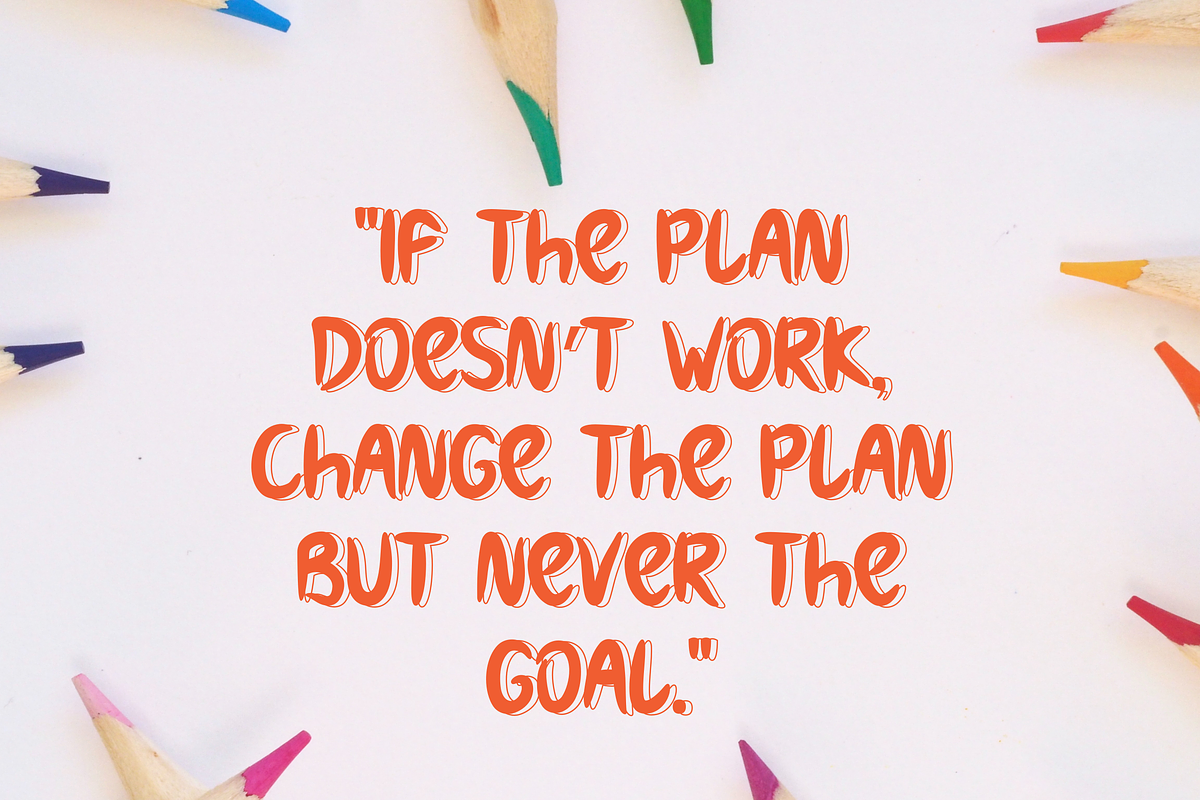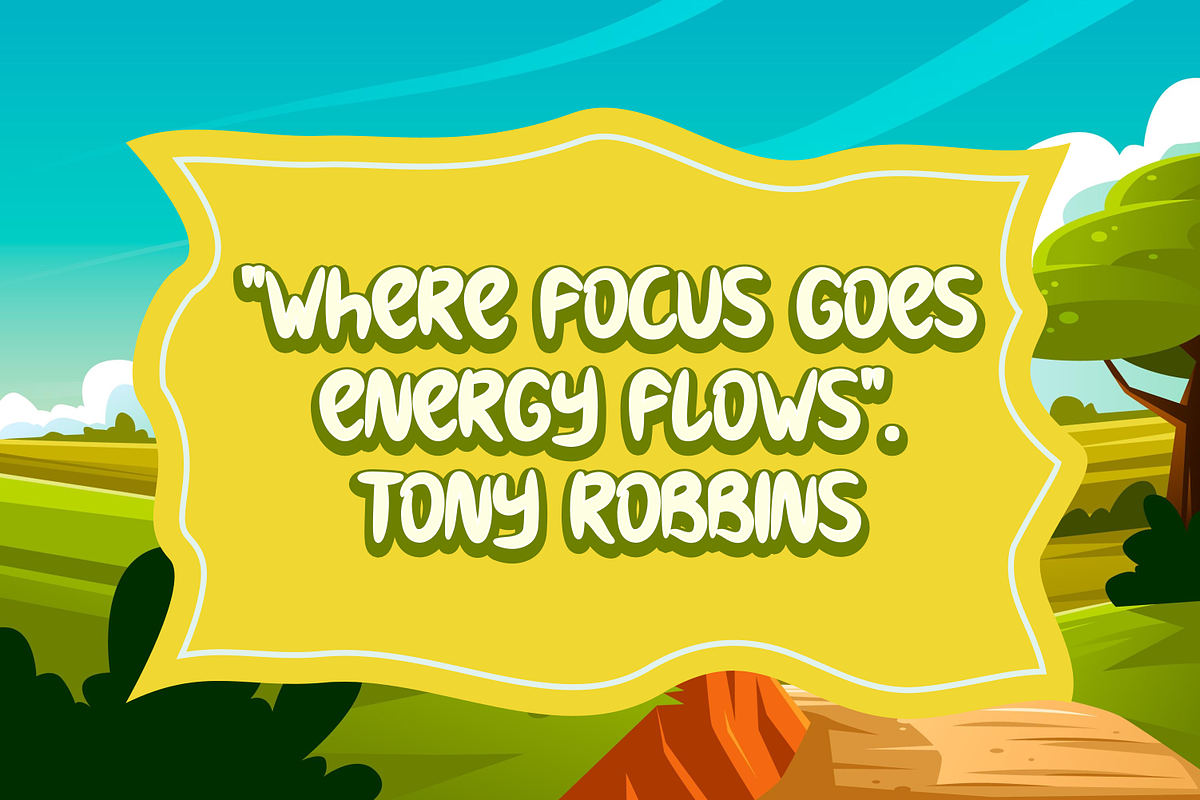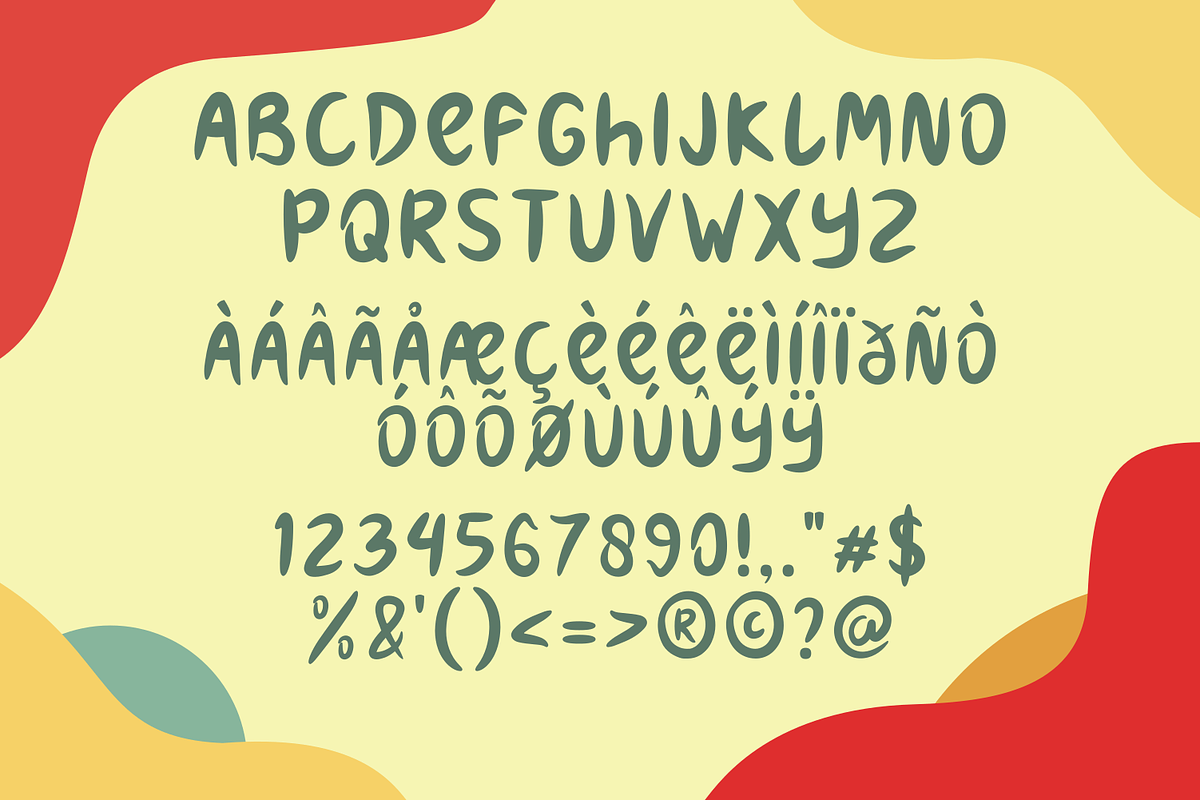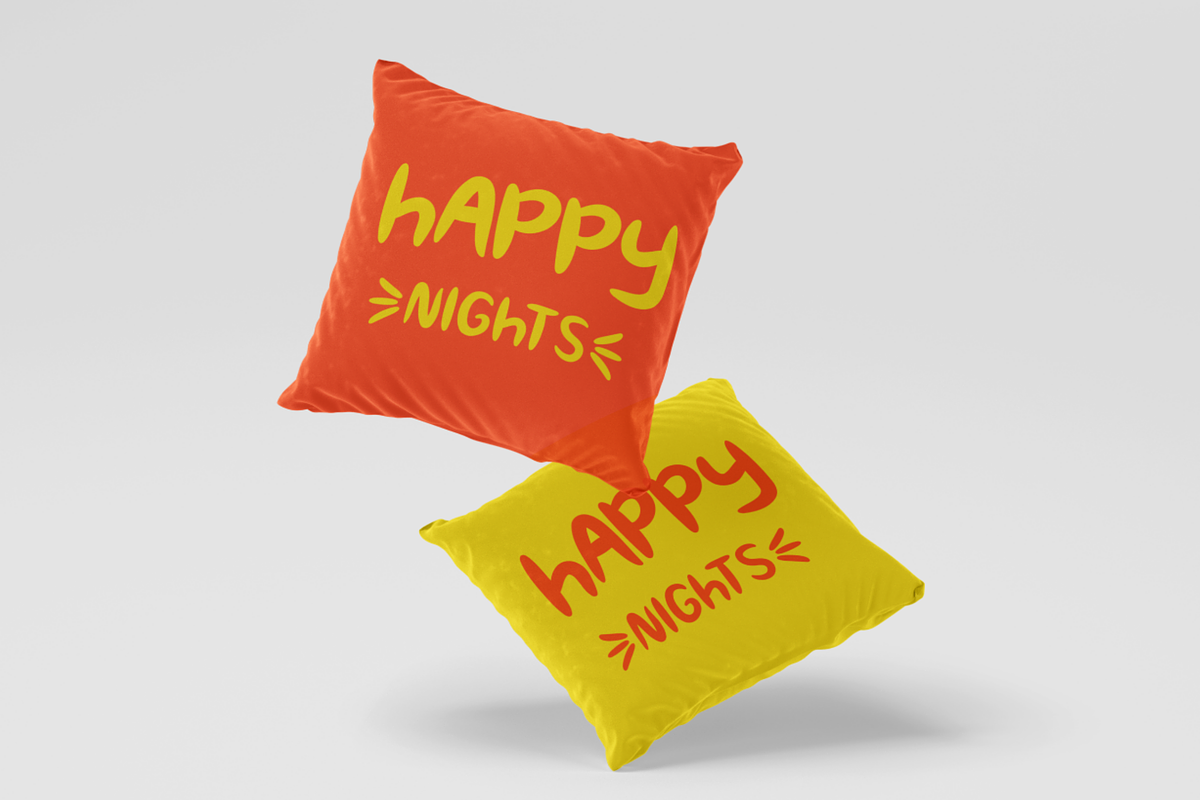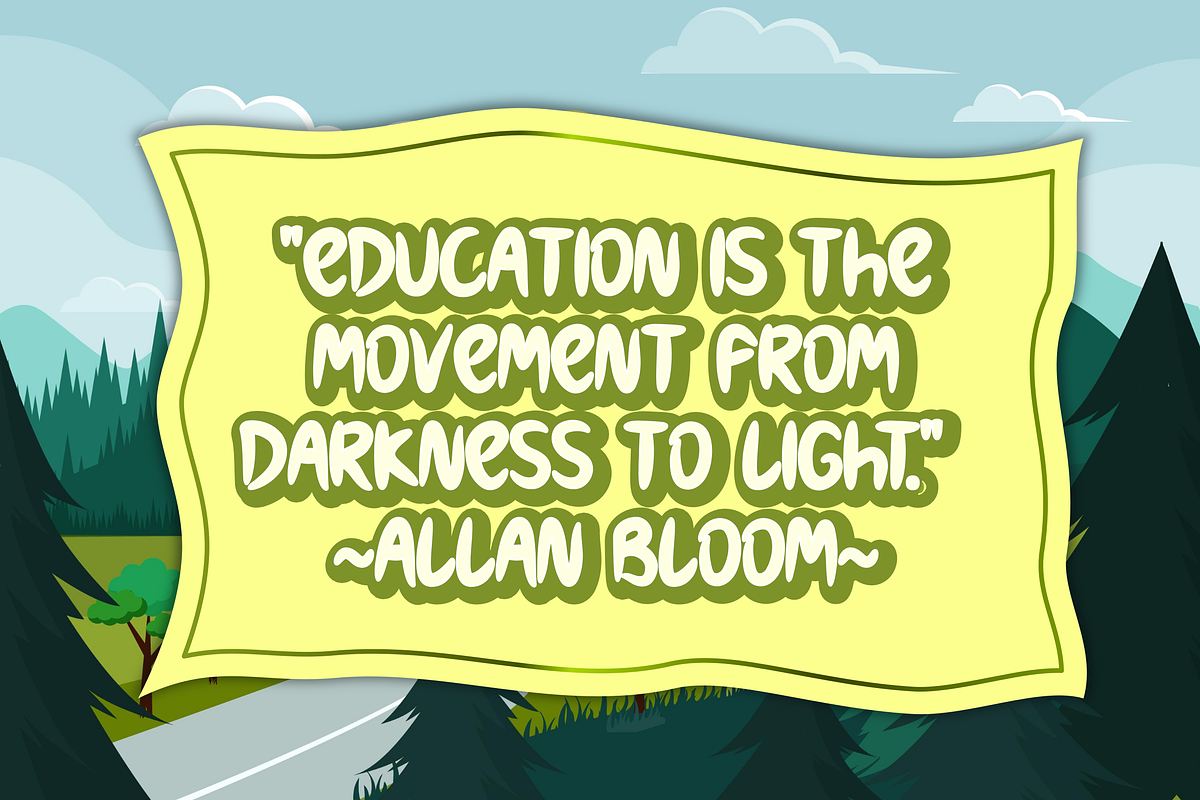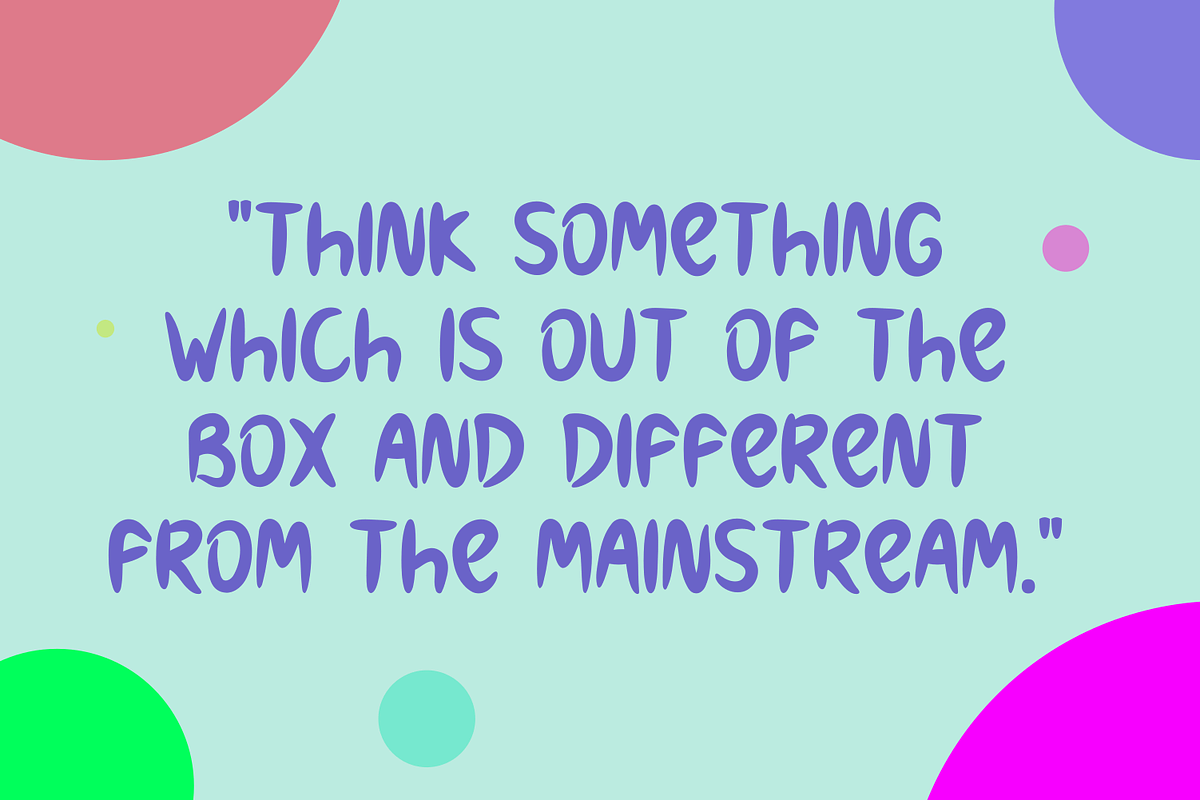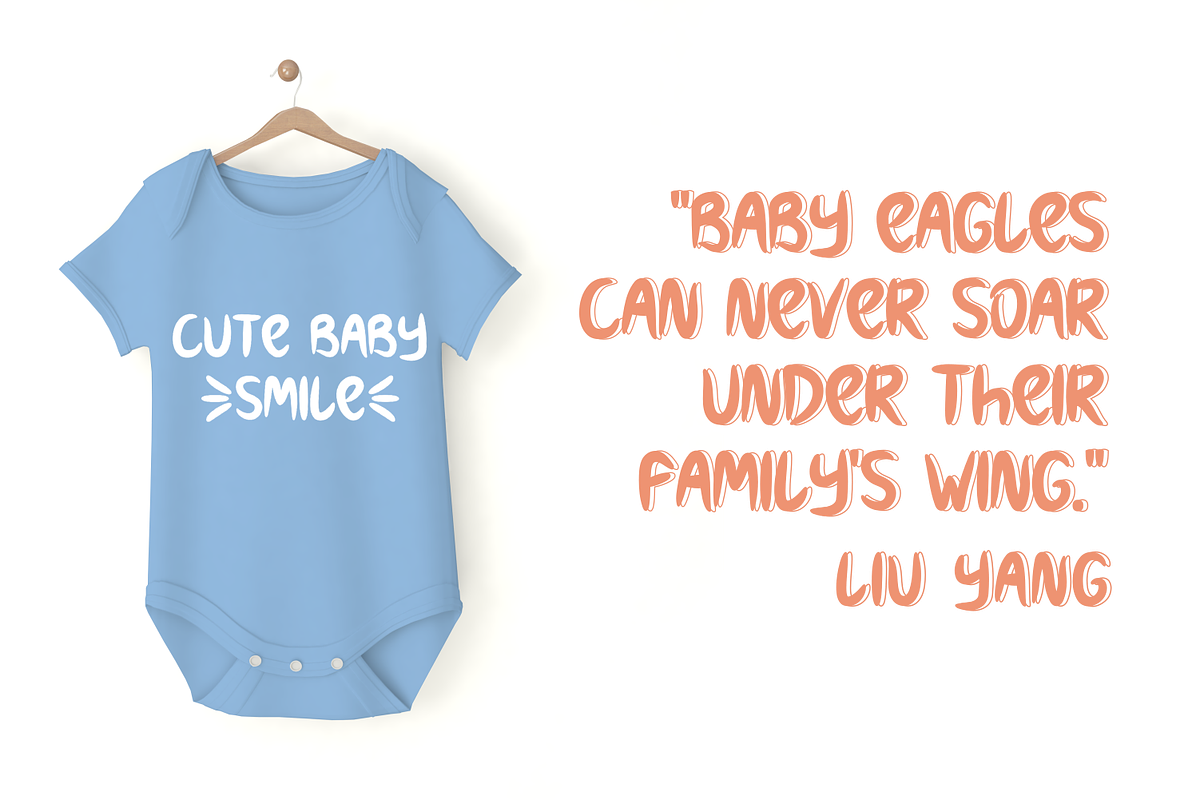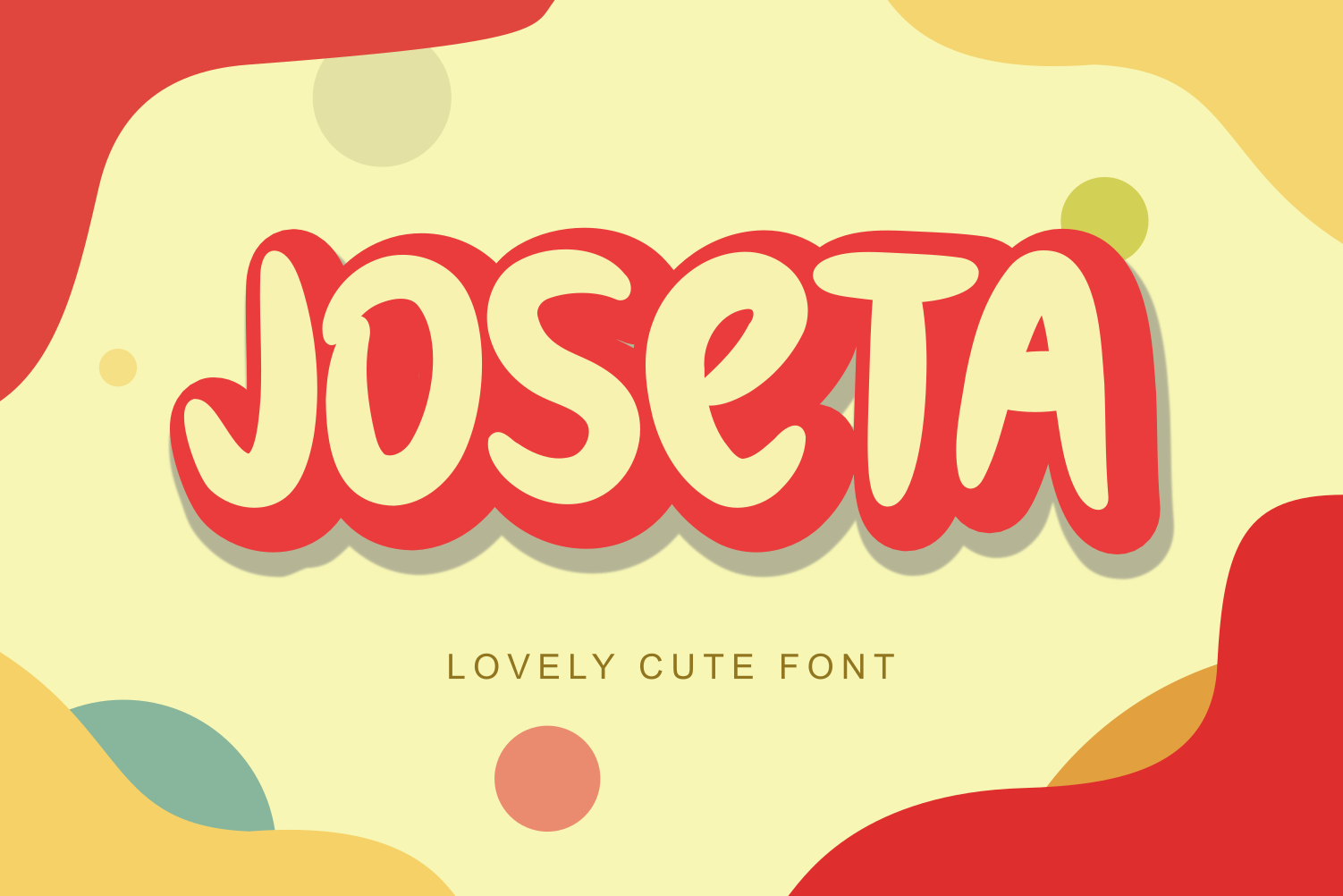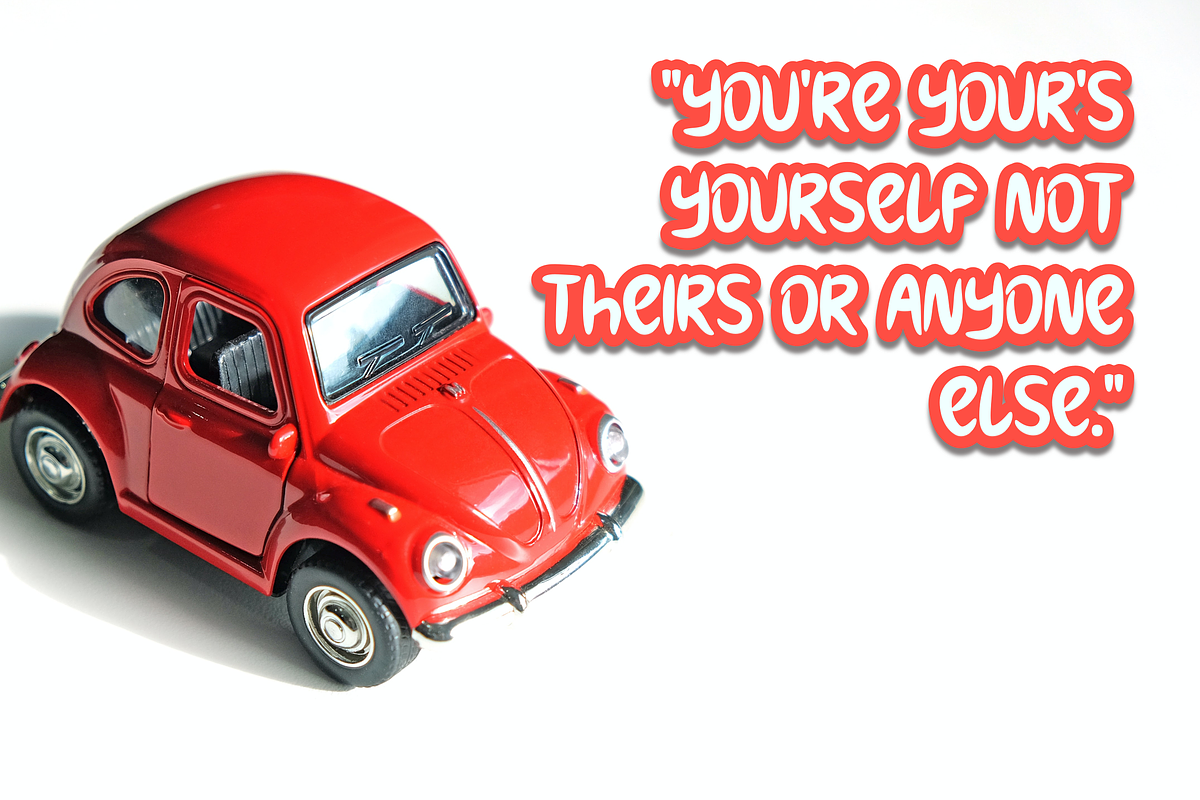
Joseta || lovely cute font
Joseta font is sweet and fun, but also elegant. This versatile bold font can be used for a variety of applications from greeting cards to children's crafts, book covers, children's t-shirts, greeting cards and is guaranteed to add a sweet touch to your next design.